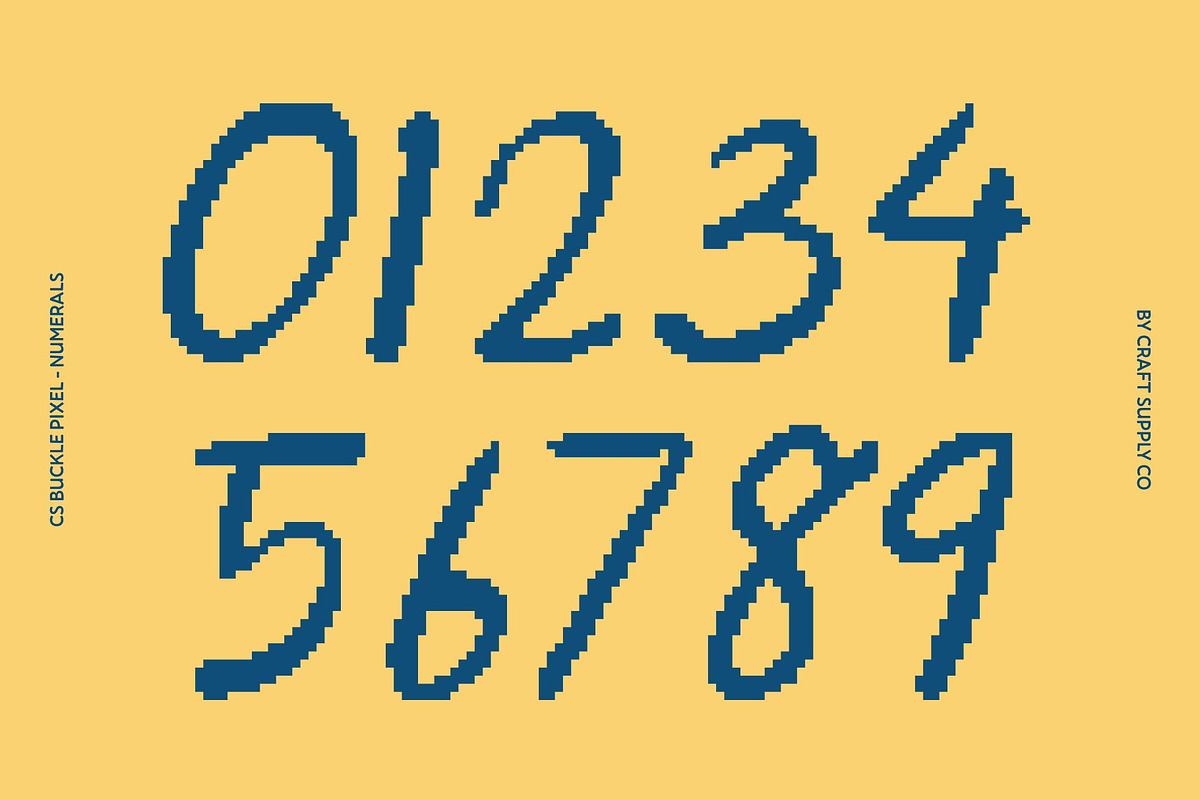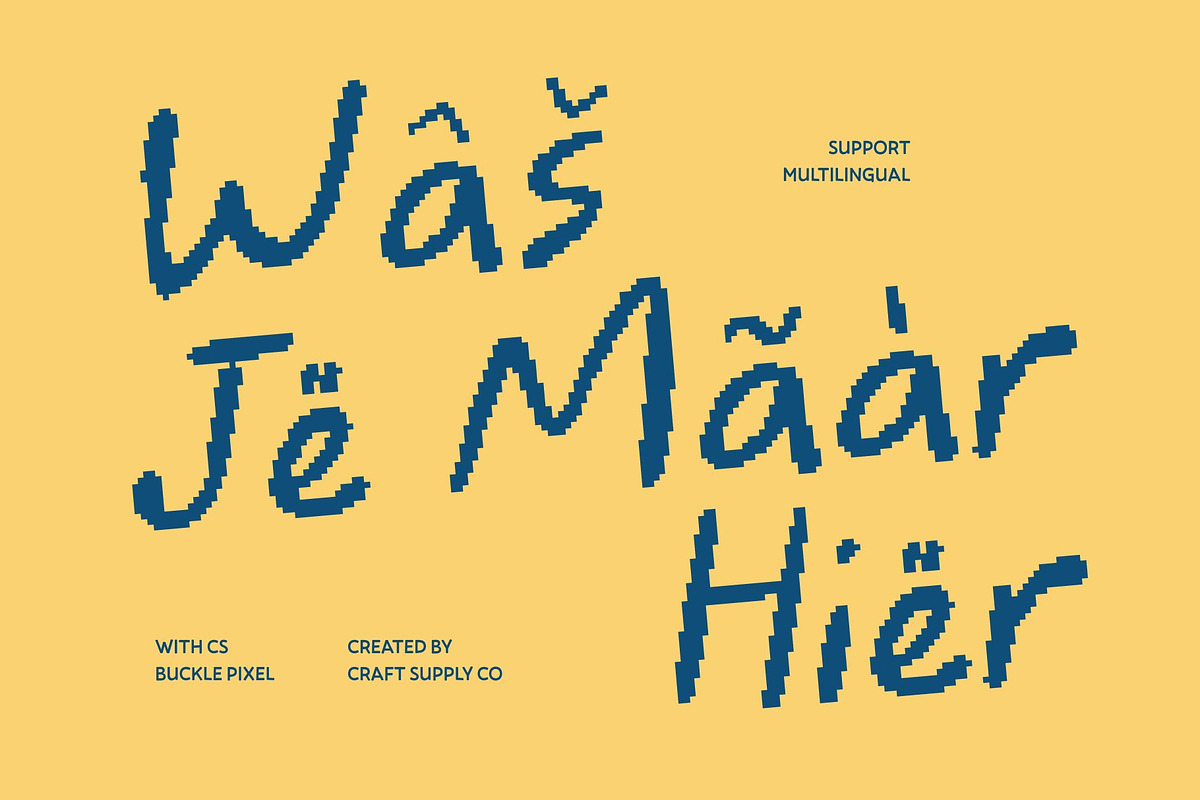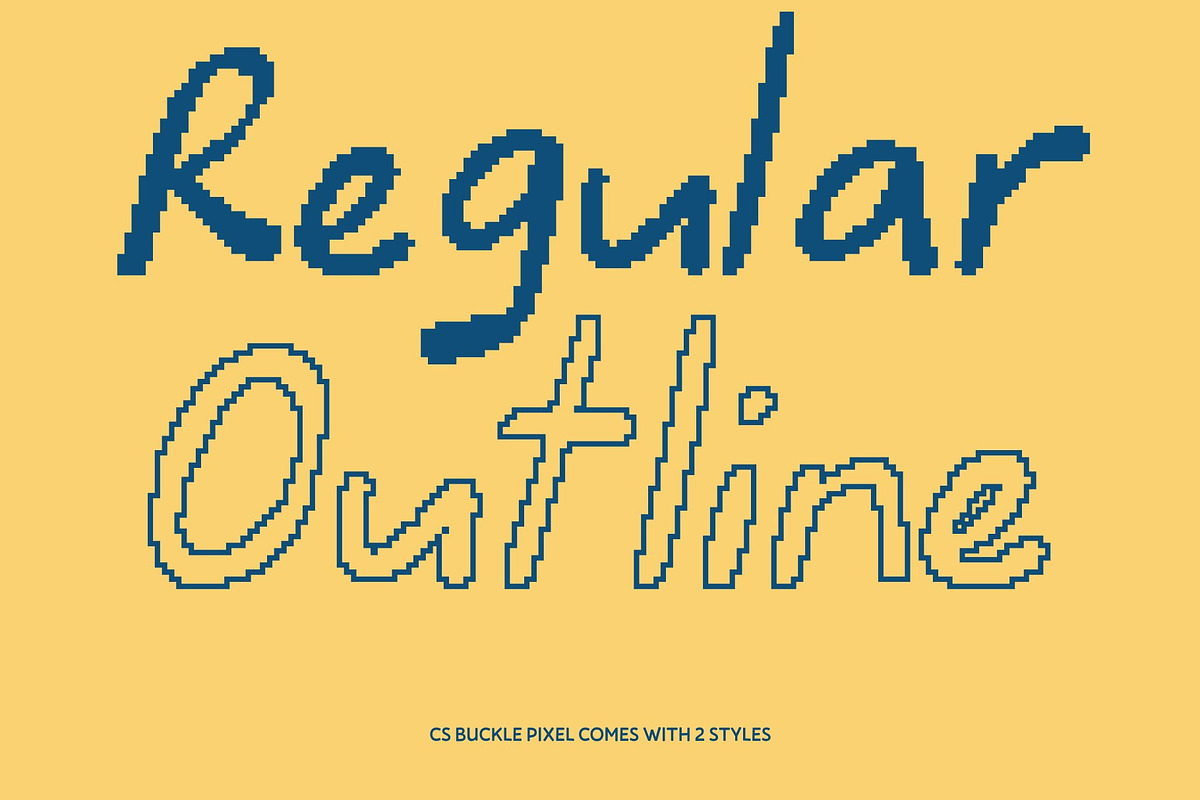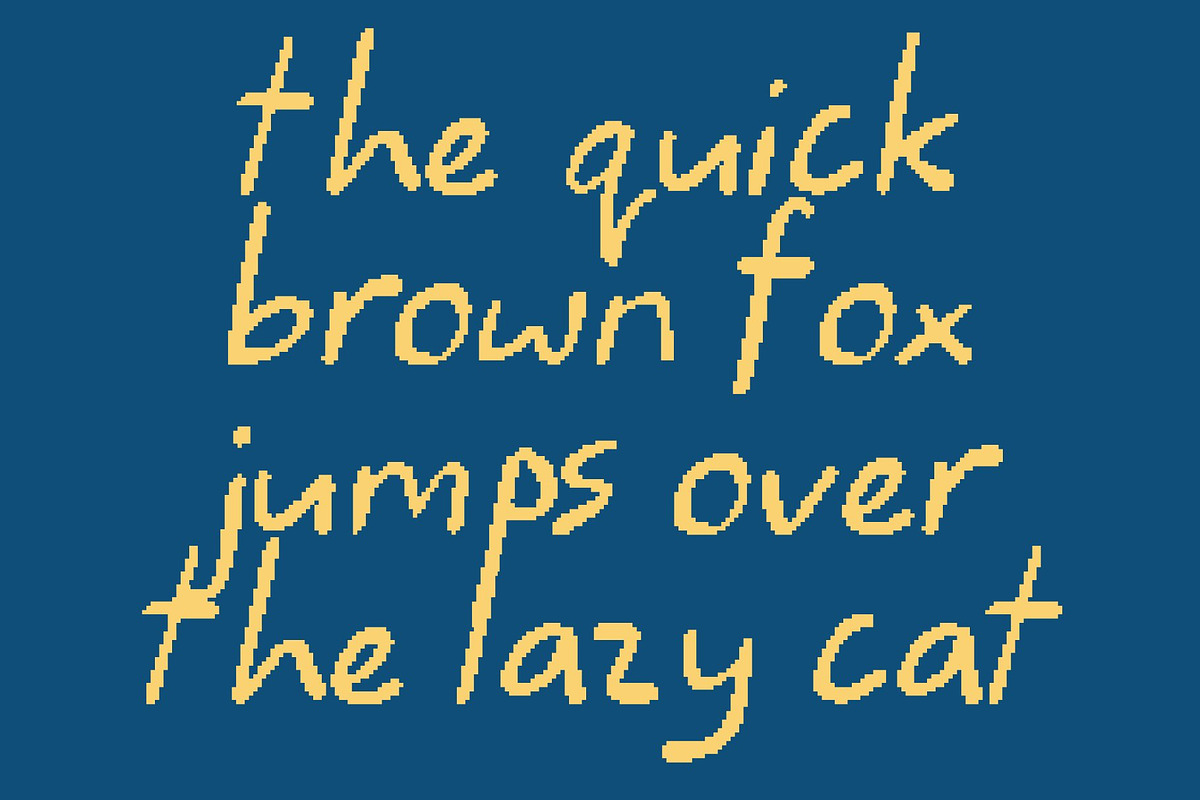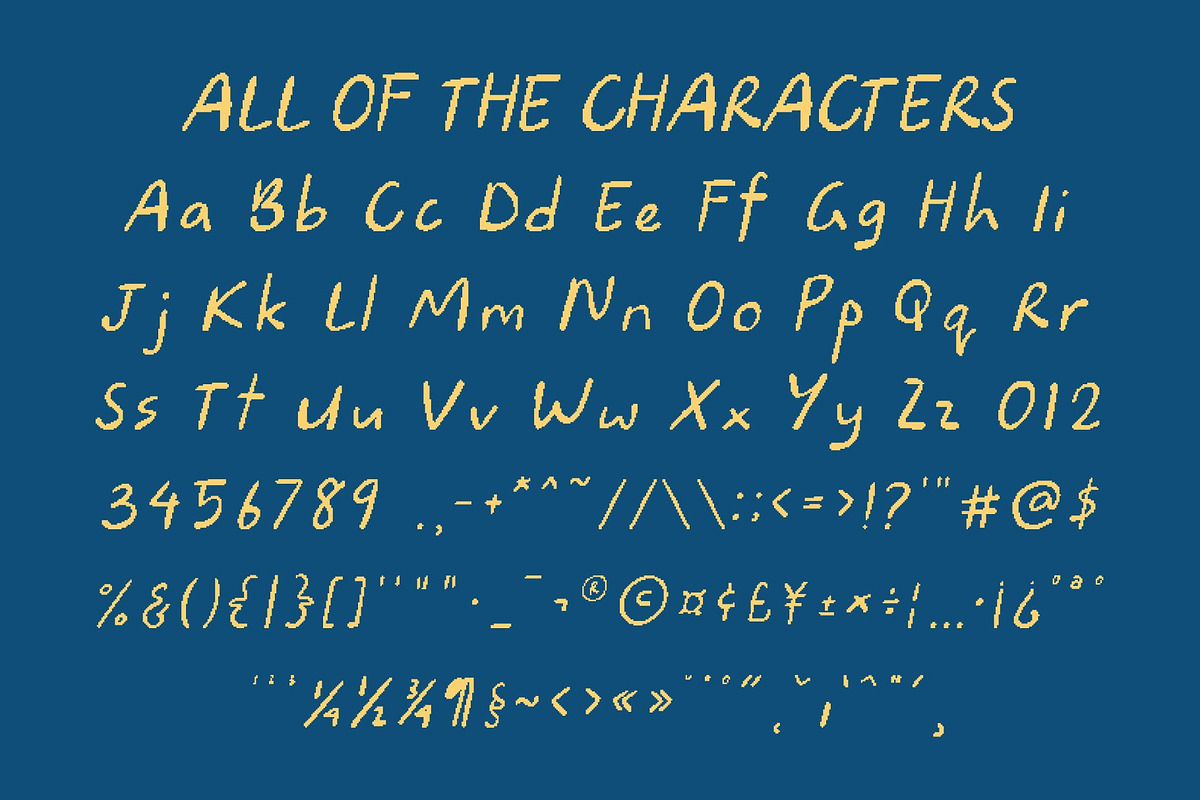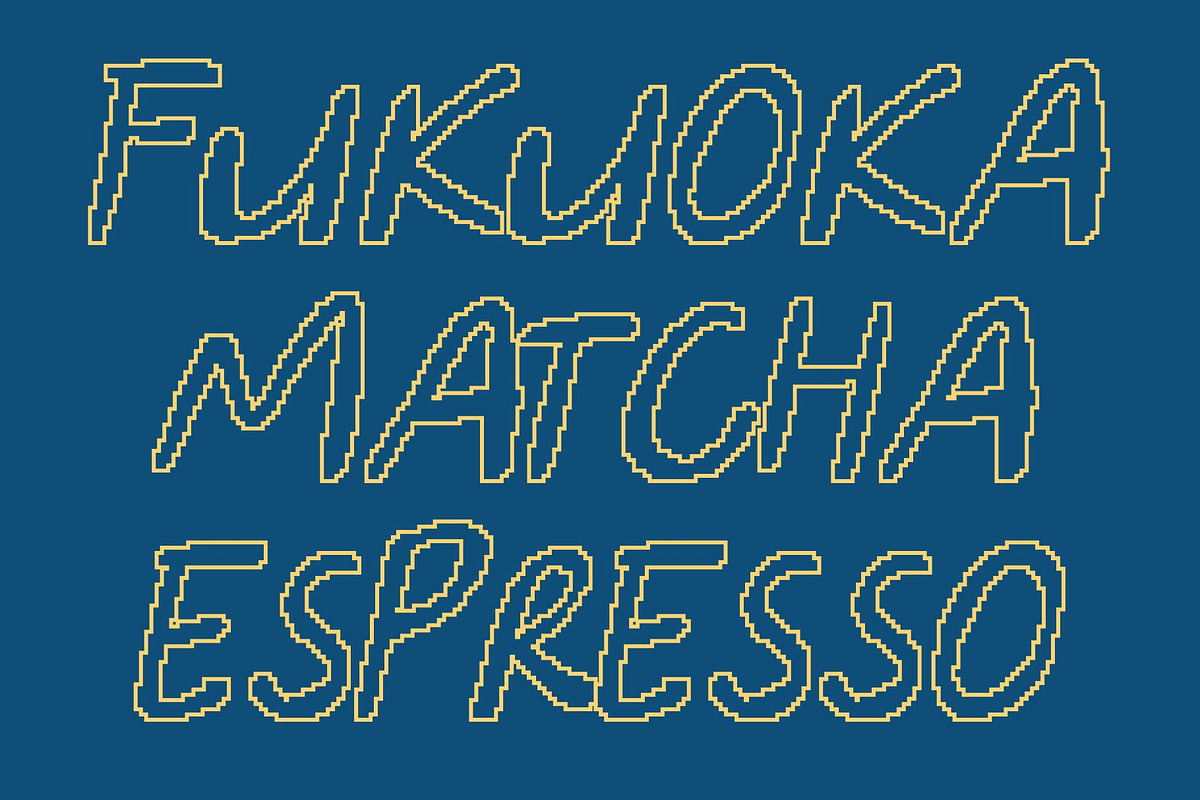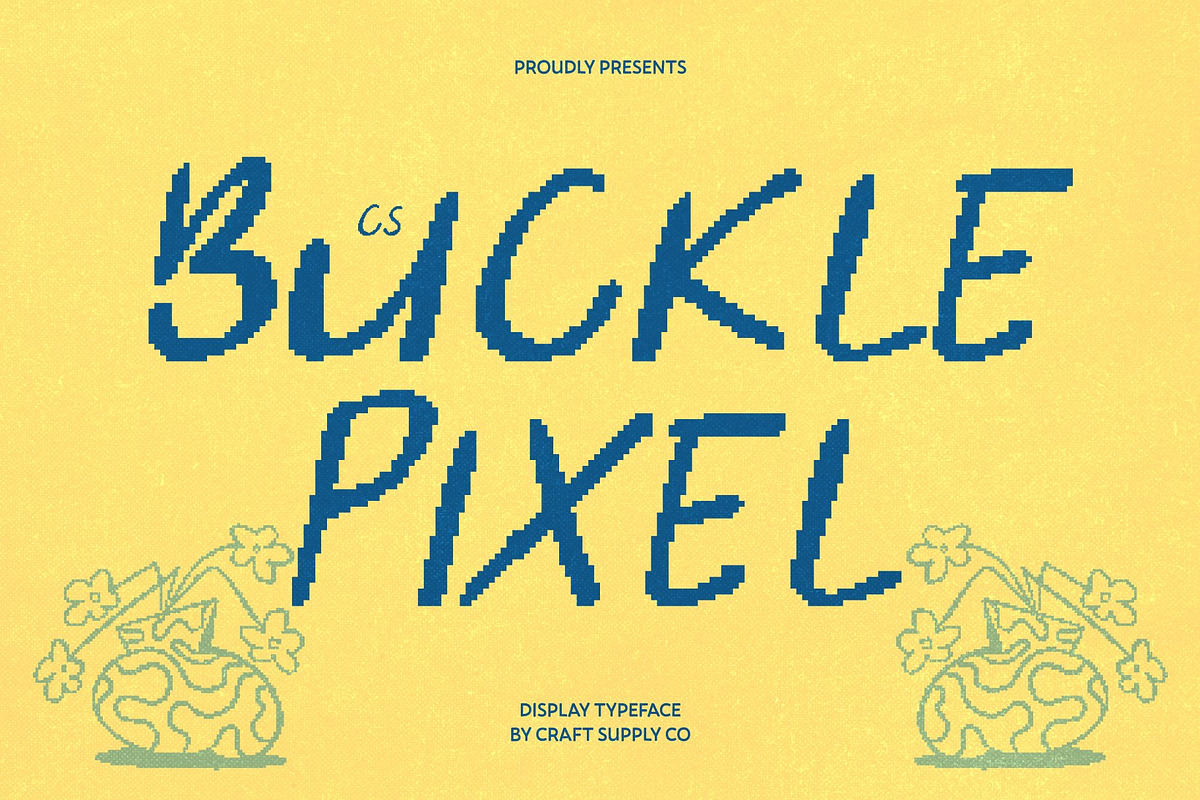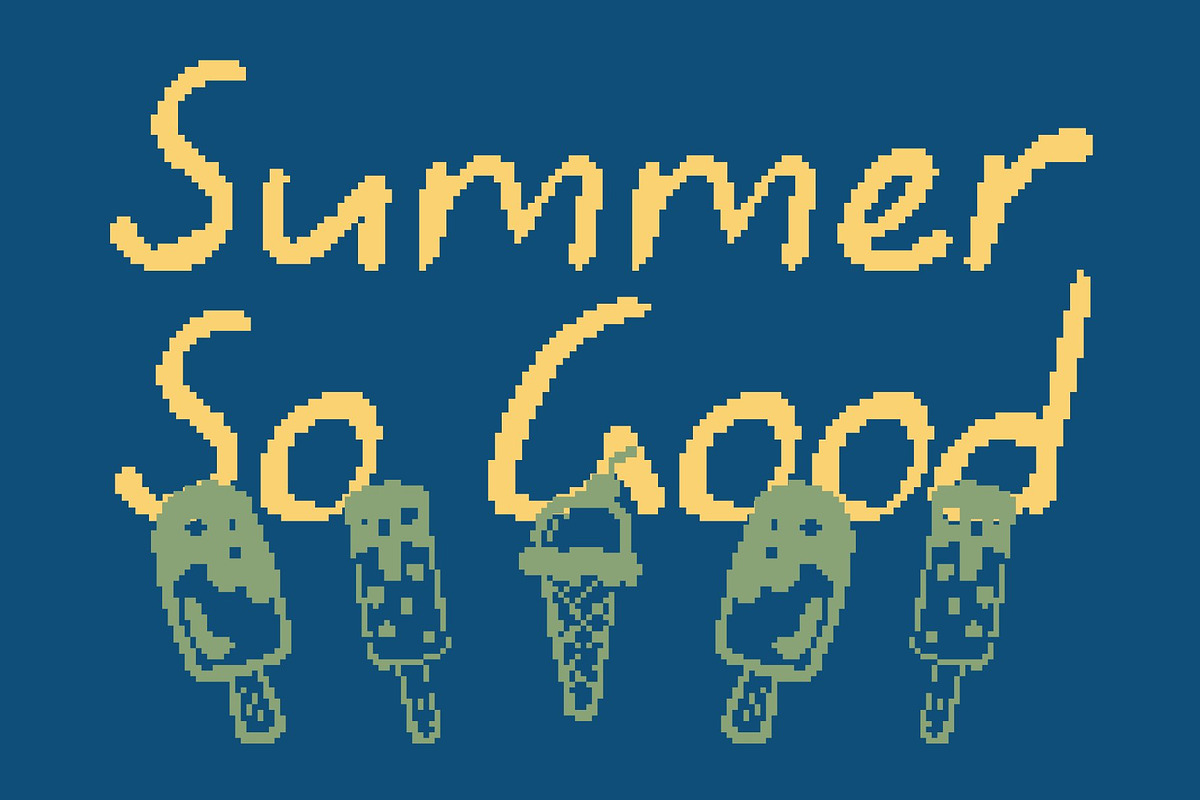
CS Buckle Pixel
CS Buckle Pixel – Playfully Rebellious in Pixel Form
Pixelated Chaos with Bold Character This is a quirky, “ugly” font transformed into a pixel-perfect display typeface. Its irregular, unpolished strokes retain raw energy while embracing a digital, grid-aligned style making it ideal for retro tech designs, arcade graphics, or edgy digital branding.
Irregular Shapes for Authentic Pixel Expression Each letter carries uneven proportions and spontaneous pixelized lines, giving the font a handcrafted, imperfect charm. Its playful unpredictability radiates individuality, making your headlines, logos, or game interfaces feel bold, unique, and full of character.
Energetic, Rebellious, and Eye-Catching The font’s rough, pixelated edges inject movement and youthful energy into any composition. Perfect for experimental projects, creative posters, or anti-mainstream branding,this font turns imperfection into a confident design statement that immediately grabs attention.
Ideal for Digital, Retro, and Underground Projects From arcade-inspired visuals to edgy digital campaigns and playful tech branding, this font thrives in contexts that celebrate originality. Its pixel style amplifies its rebellious personality, ensuring your designs feel human, bold, and unmistakably alive.